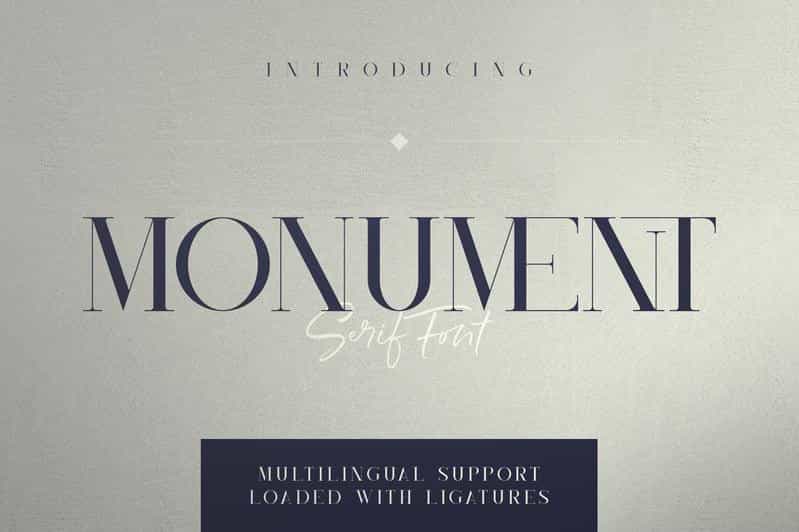
Monument is modern and elegant typeface with four different styles which is packed with ligatures and supports multiple languages. It is a very good font that is applicable for different sizes and looks good both in large and small sizes. Monument is ideal for branding, home decor, product, packaging, magazine titles – or to overlay any picture with a classy text.